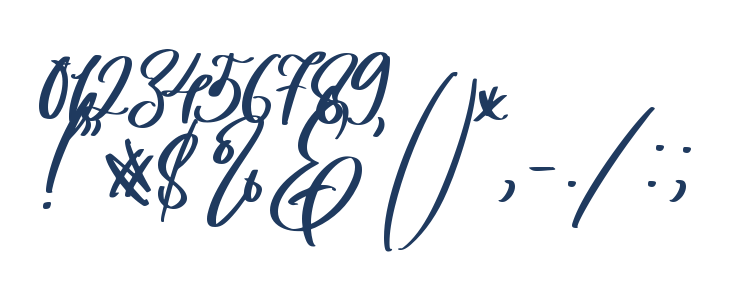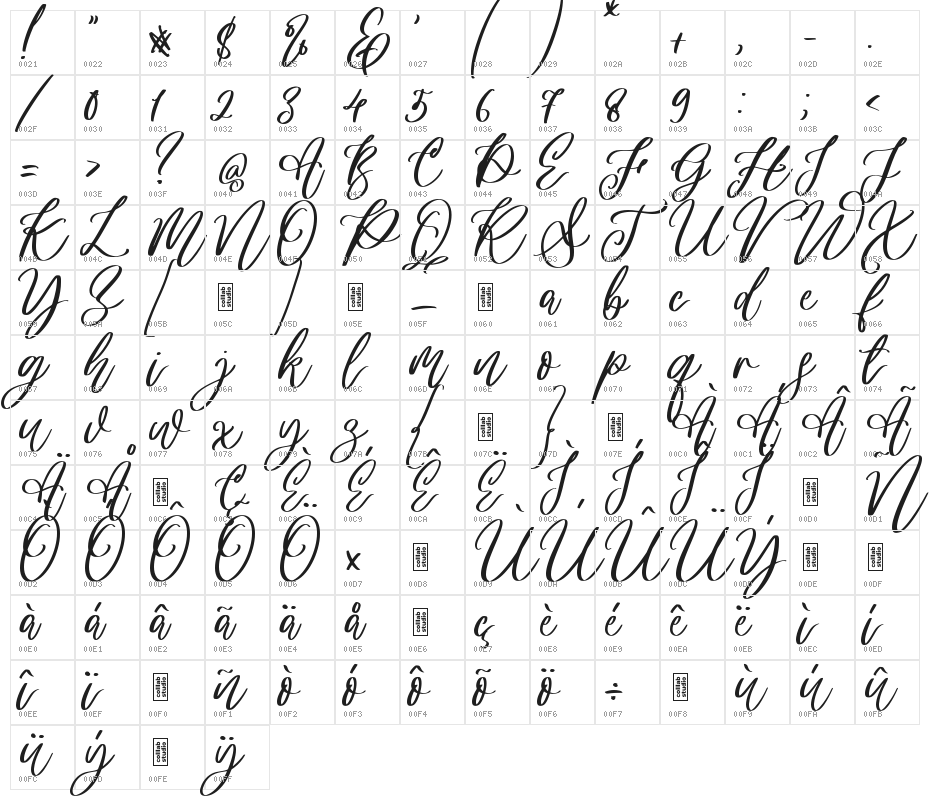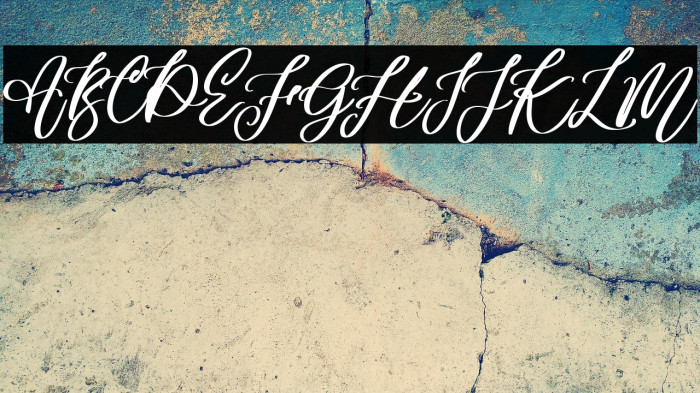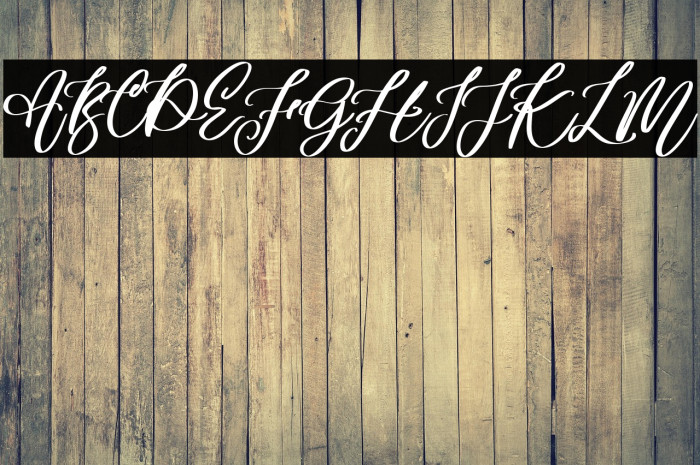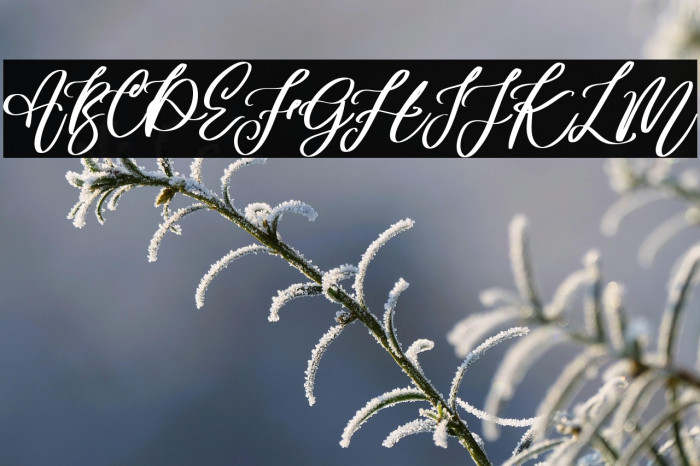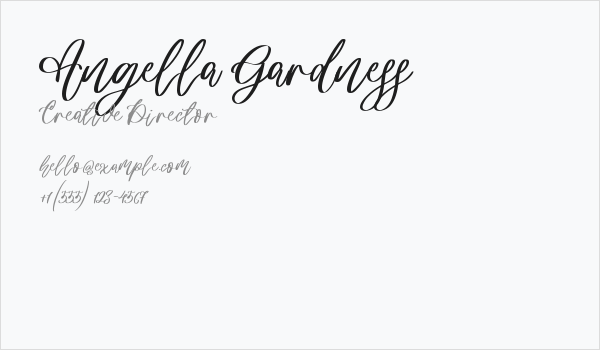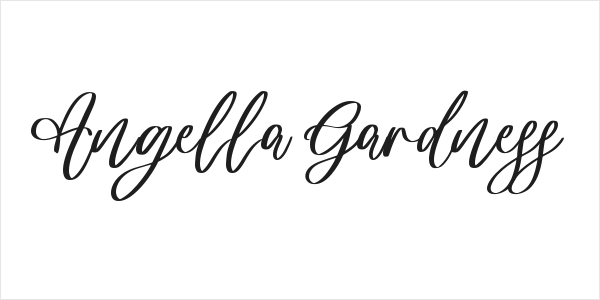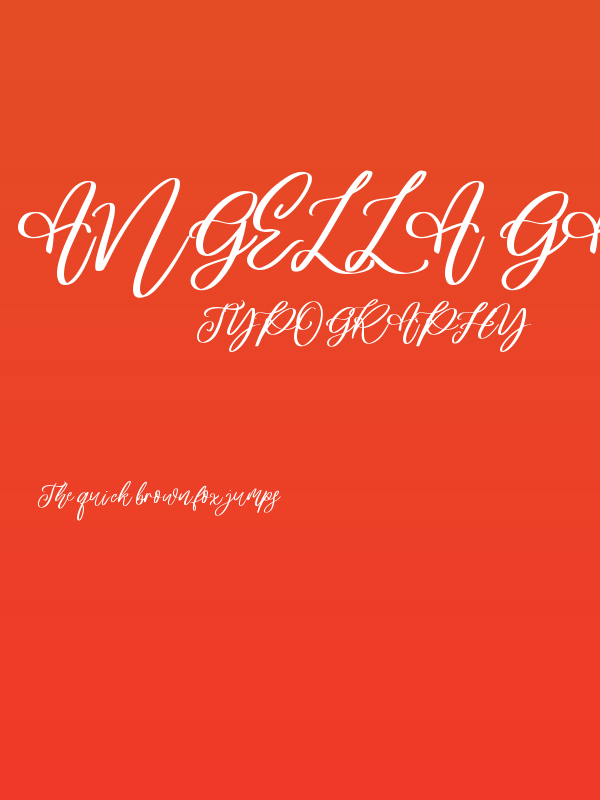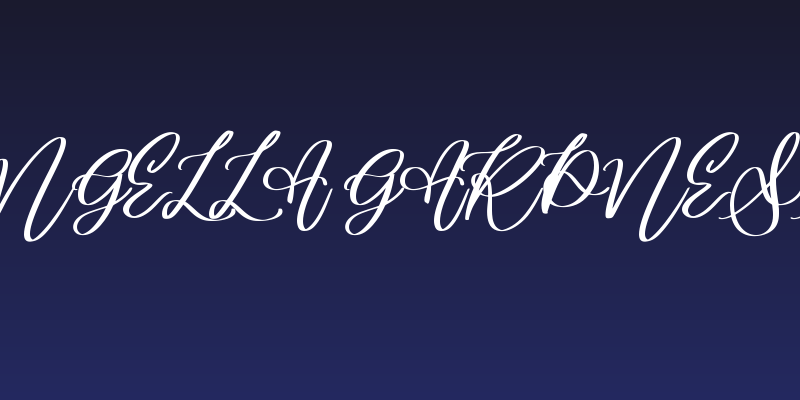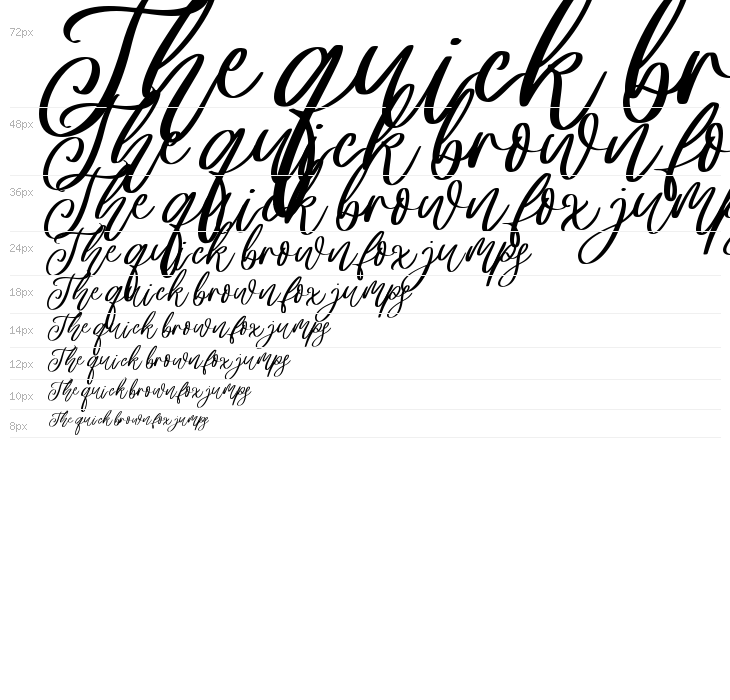
Angella Gardness Font
Angella Gardness Description
This font exudes elegance and sophistication with its flowing, cursive style. Each letter is intricately designed with smooth curves and graceful loops, creating a sense of movement and fluidity. The uppercase characters are bold and prominent, while the lowercase letters maintain a consistent flow, enhancing readability. The numerals are equally stylish, with a unique flair that complements the overall aesthetic. Special characters are thoughtfully integrated, maintaining the font's cohesive look. This script font is perfect for projects that require a touch of elegance and personal flair.